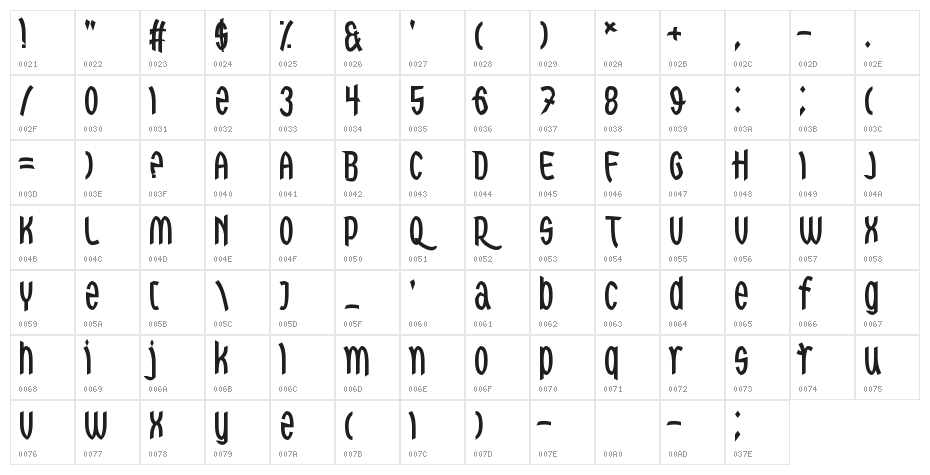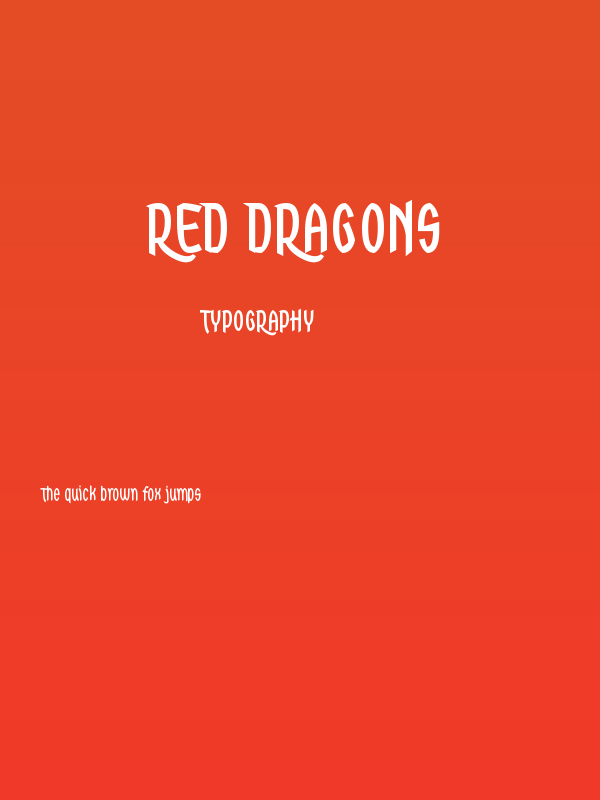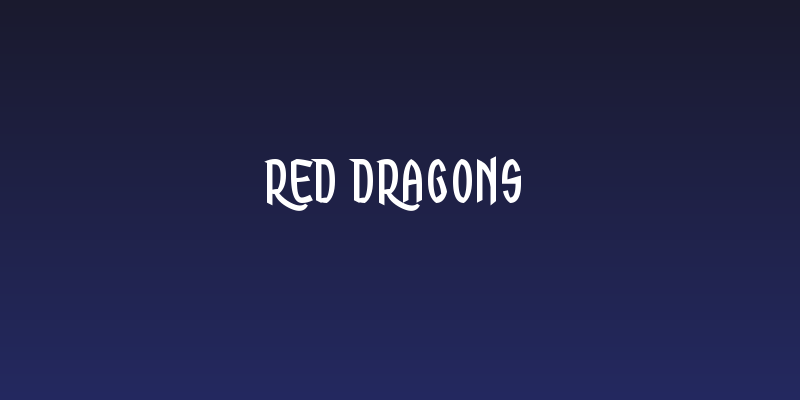
Red Dragons Font
Red Dragons Description
This font features a bold and dynamic style with a strong presence. The characters are elongated and slightly curved, giving them a unique and artistic flair. The uppercase letters have a consistent height, while the lowercase letters maintain a similar width, creating a harmonious balance. The numbers and special characters are designed to match the overall aesthetic, with distinctive shapes that stand out. The font's design is both modern and slightly gothic, making it suitable for projects that require a bold and eye-catching typeface.
| Overall Style | Modern Gothic |
| Proposed Projects | Ideal for branding, posters, album covers, and any project needing a bold, artistic touch. |